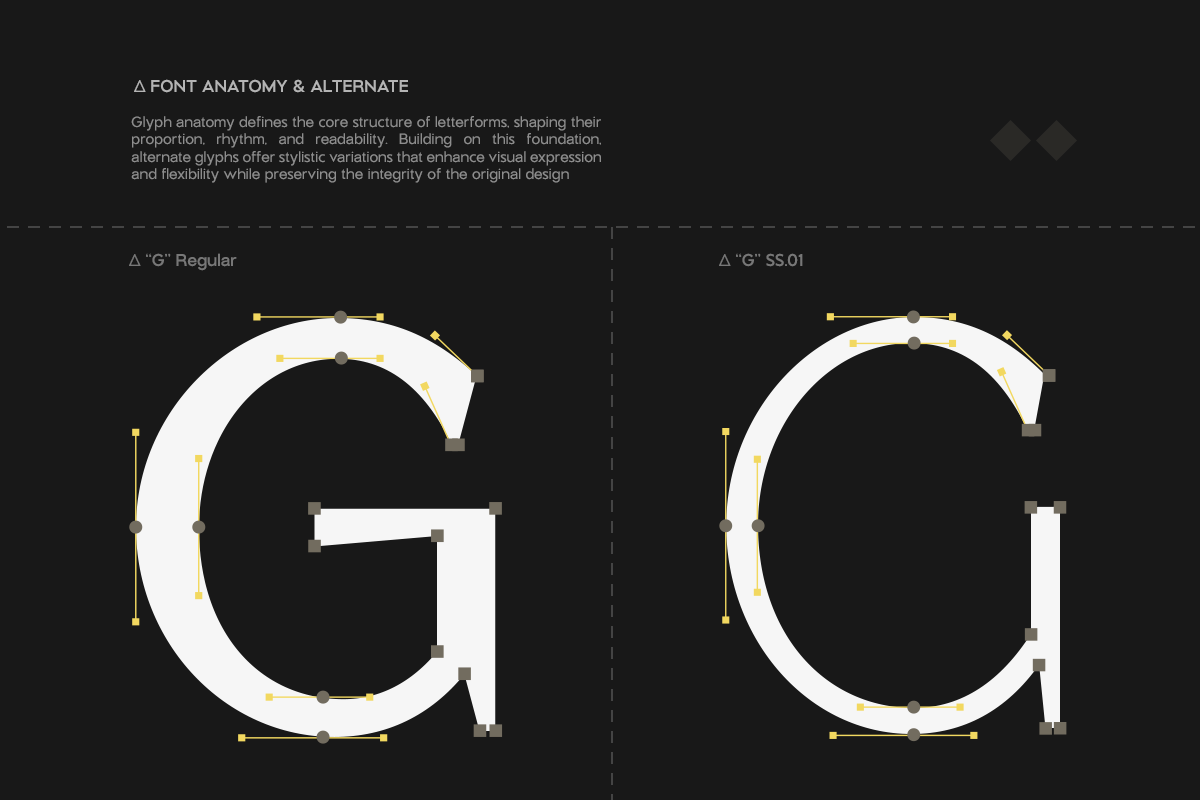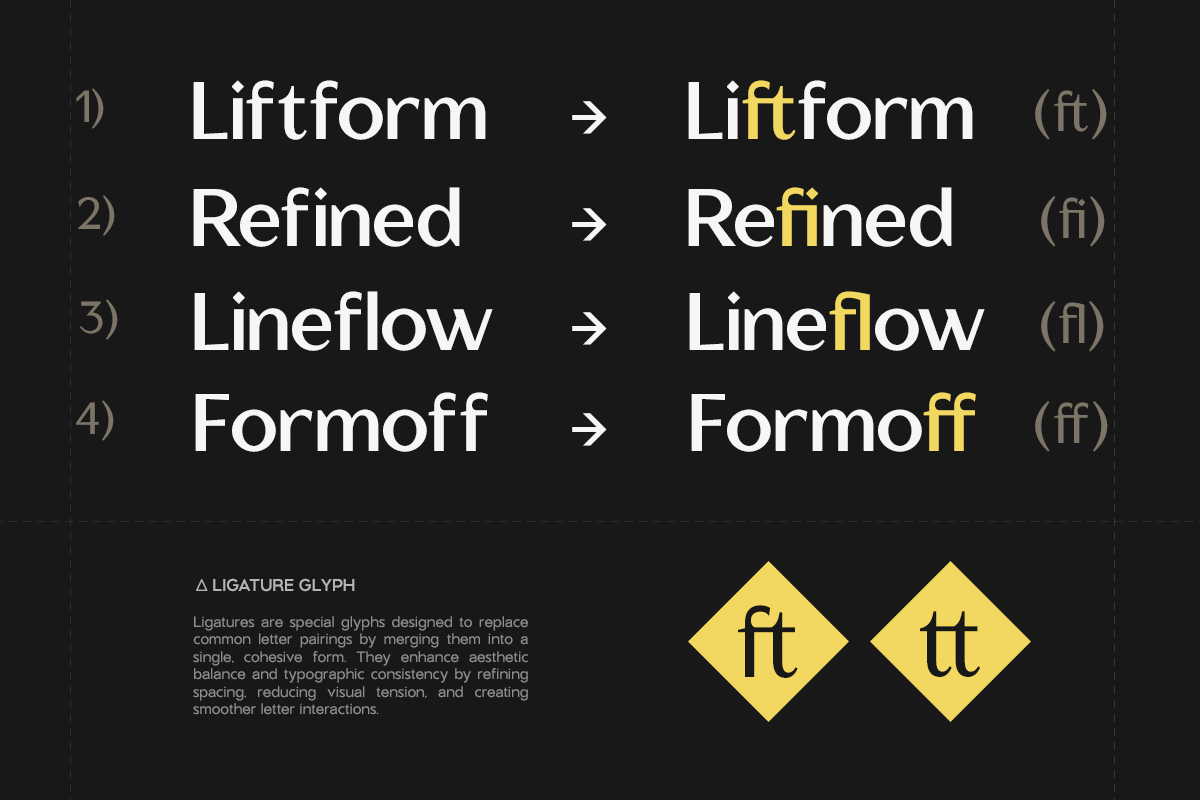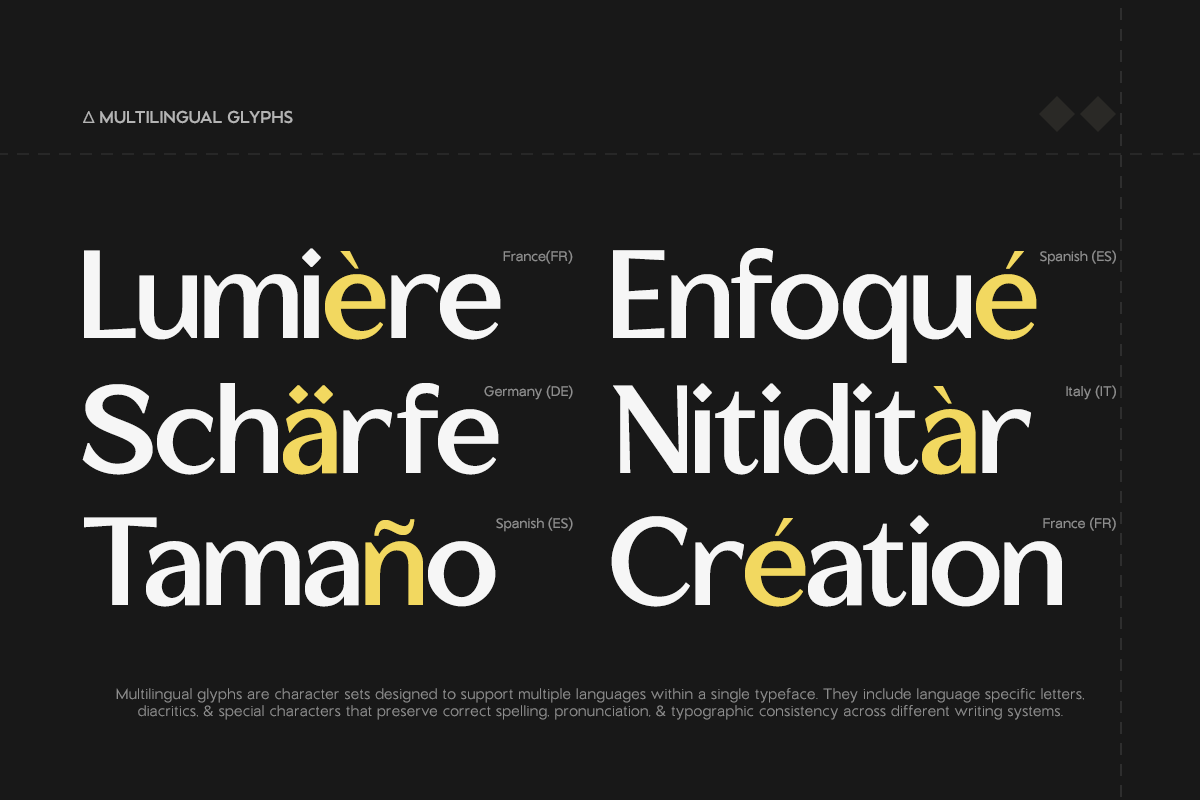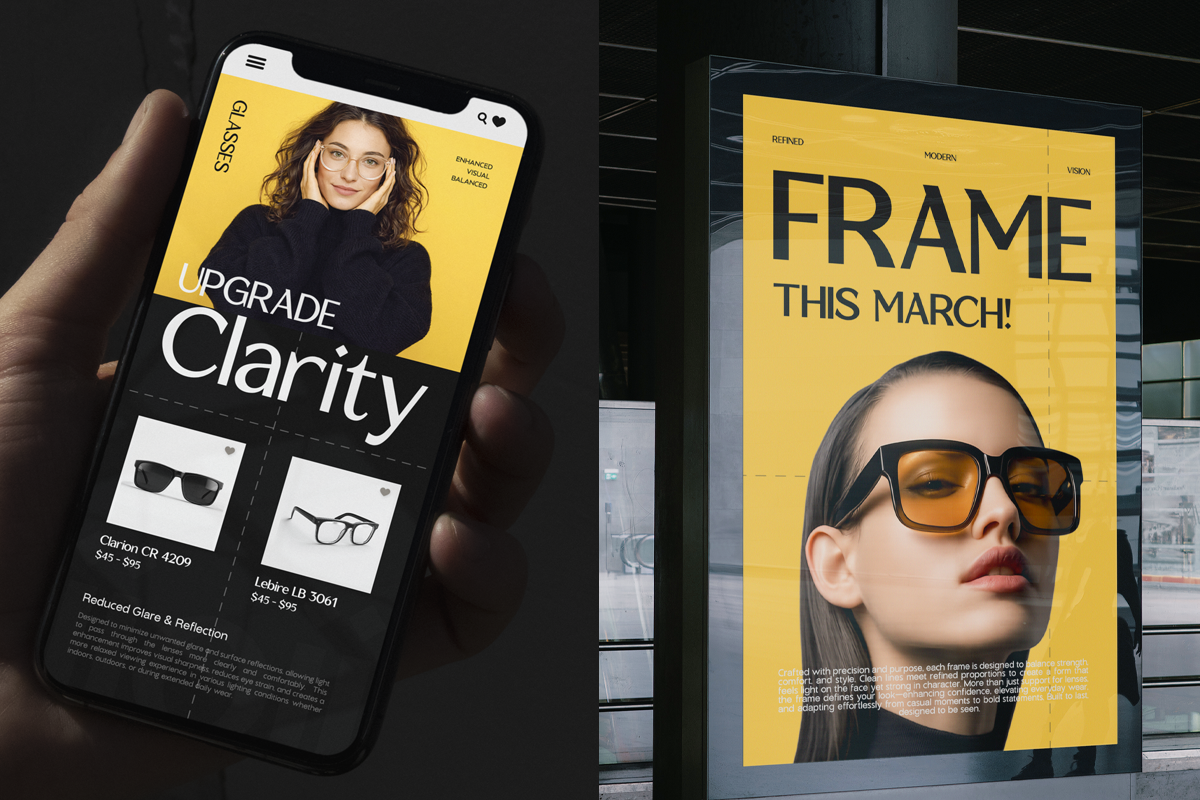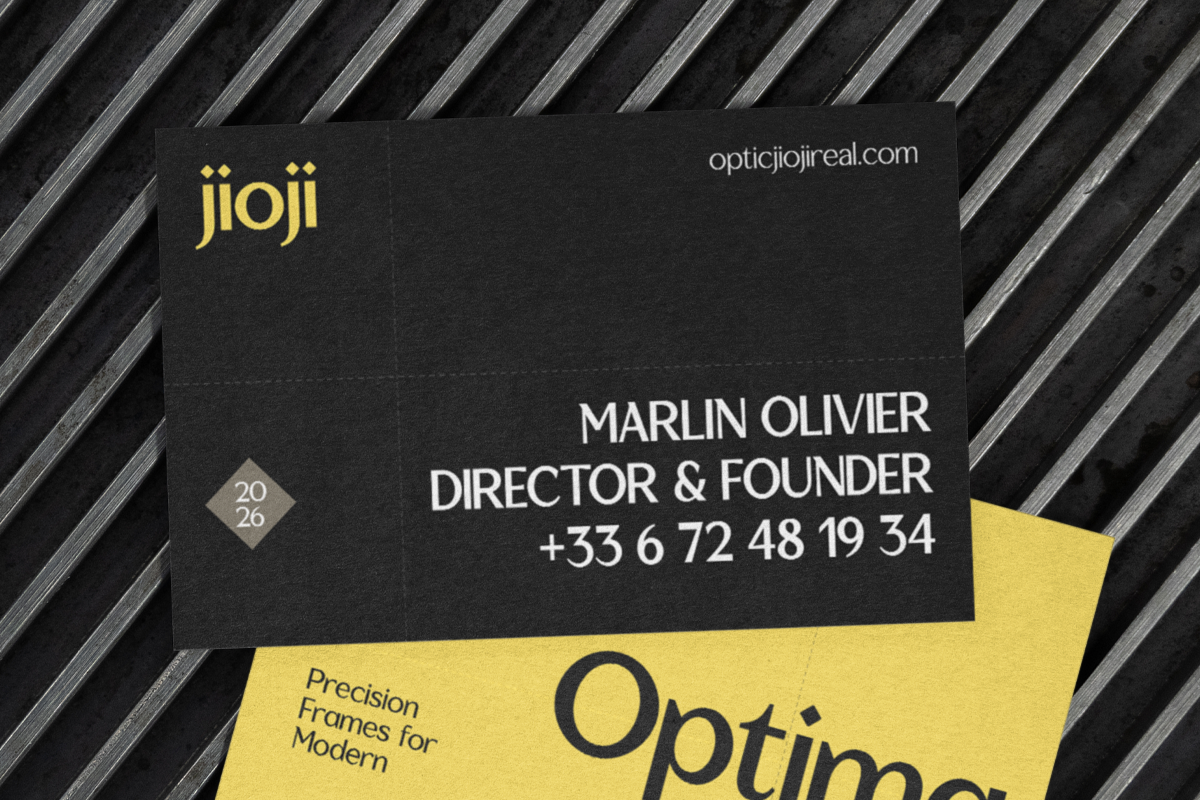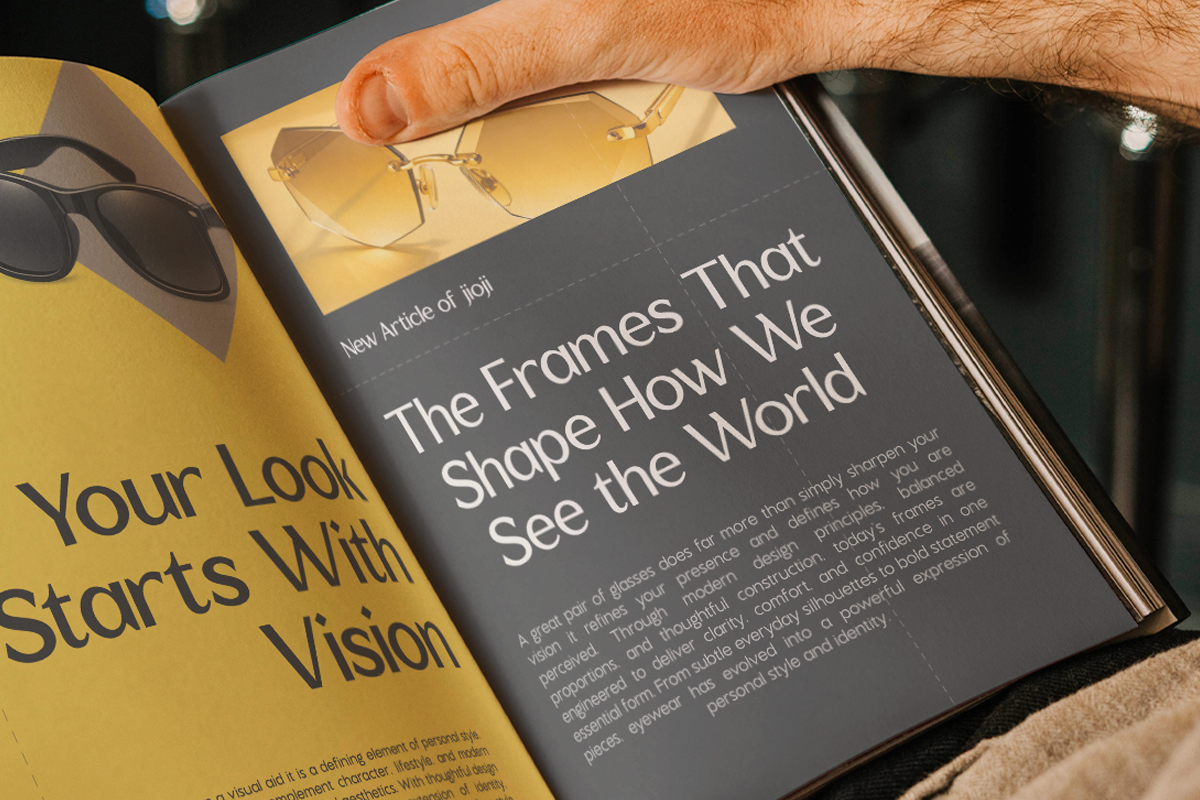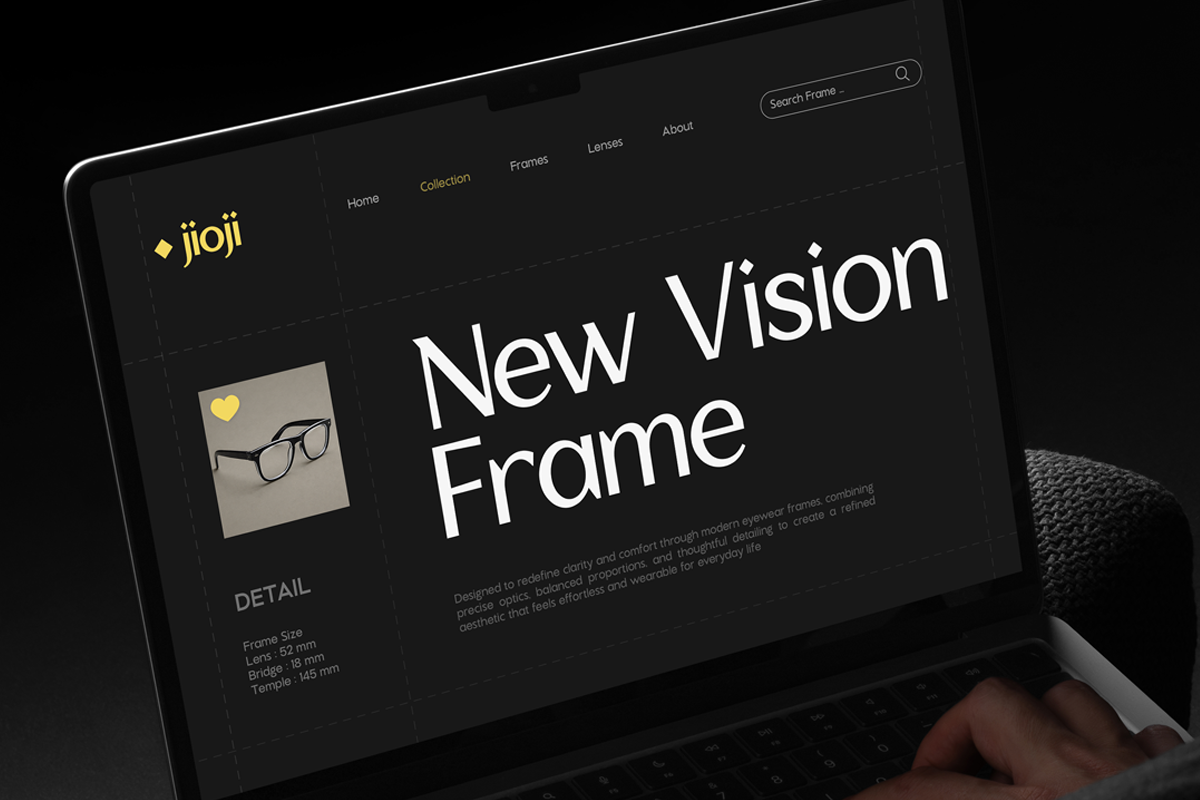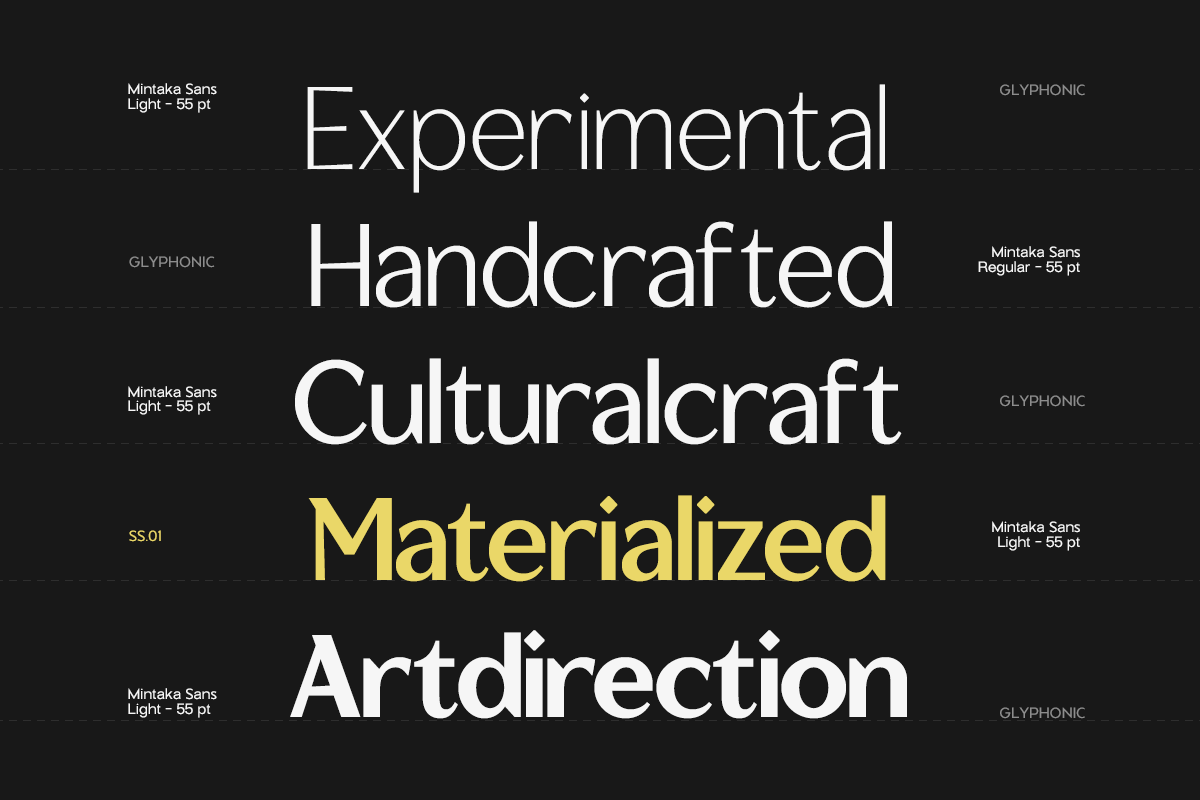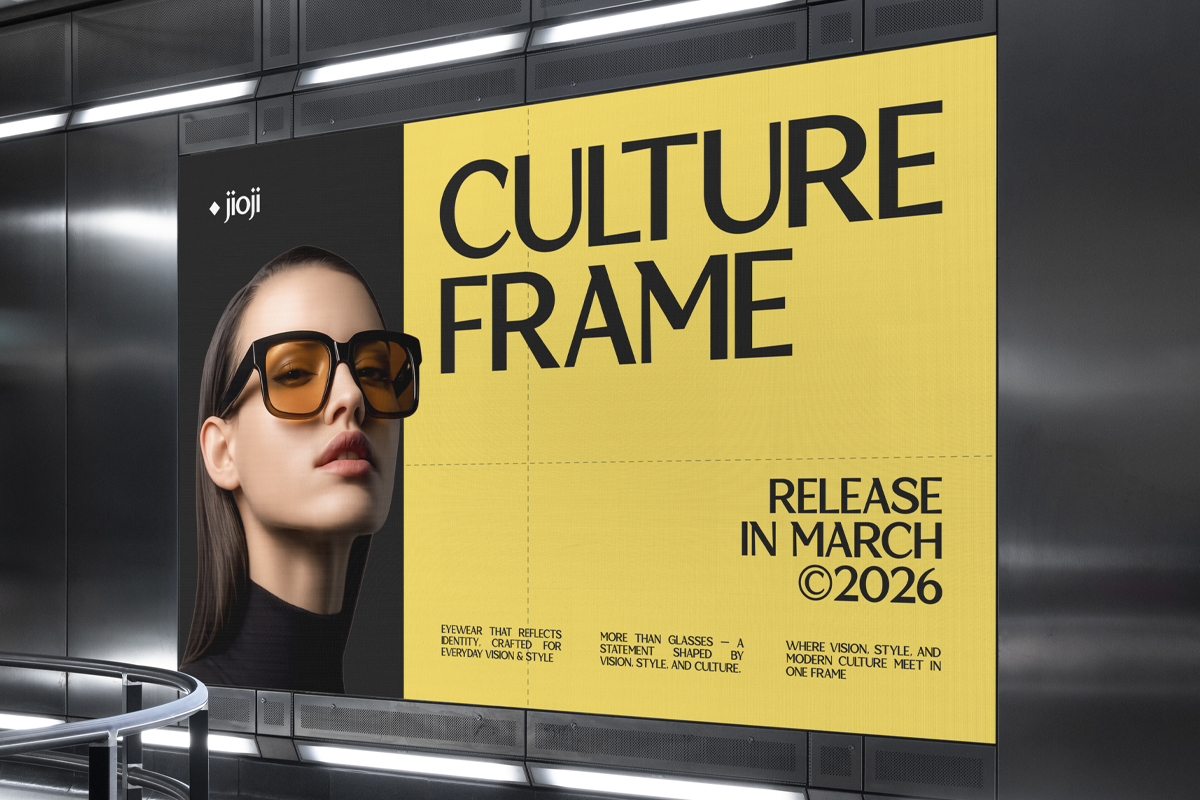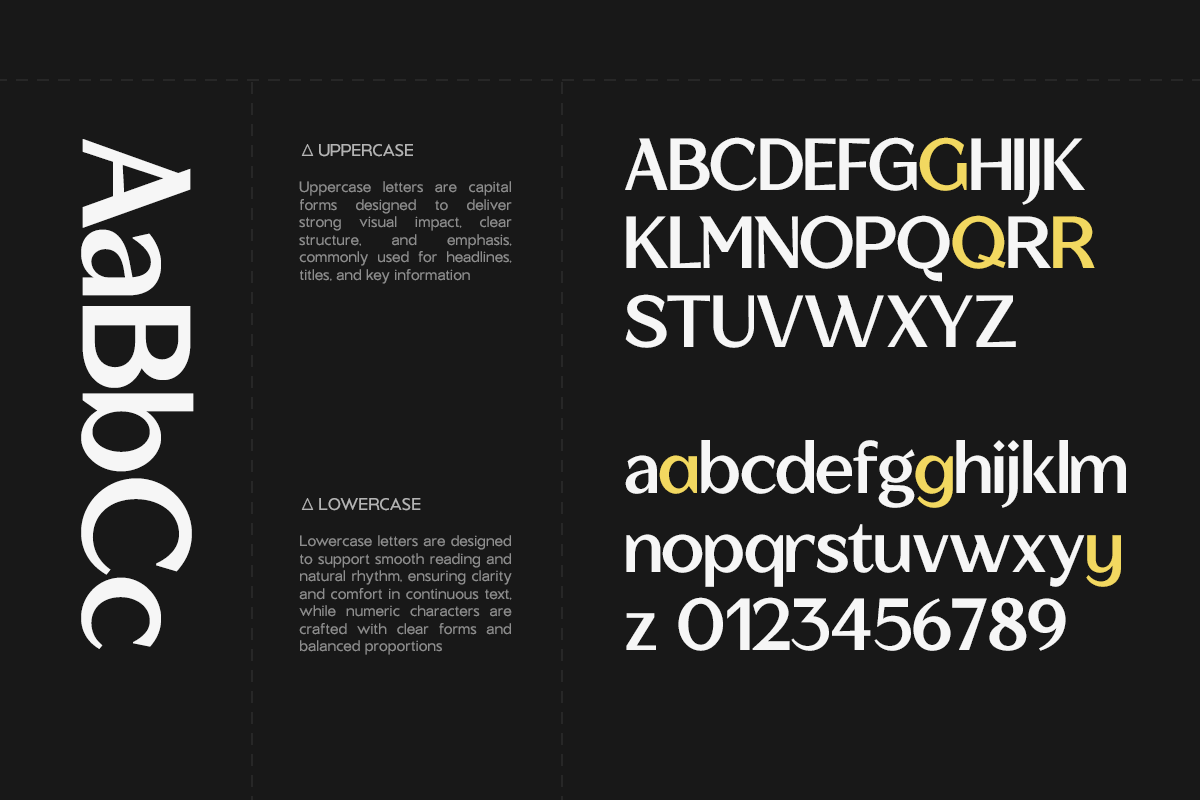
GC Mintaka - Elegant Display Sans
GC Mintaka – Elegant Display Sans is a modern display sans typeface crafted to deliver elegance through simplicity and clarity. Built with clean geometric forms, balanced proportions, and refined curves, Mintaka creates a sophisticated visual presence that feels both minimal and expressive.
With its smooth construction and sharp contemporary detailing—as seen in its elegant letterforms—GC Mintaka brings a sense of purity and modern refinement into every composition. The display sans structure maintains excellent readability while preserving a graceful and premium aesthetic.
As a variable font with 5 weight options, GC Mintaka offers flexibility for designers to create clear hierarchy across branding, editorial layouts, fashion visuals, posters, and modern digital interfaces. From light refined typography to bold statement headlines, the font maintains consistency and elegant character throughout every weight.
Variable Font (5 Weight Options)
Elegant Display Sans Construction
Clean & Refined Letterforms
Modern Geometric Structure
Multilingual Support (170+ Languages)
GC Mintaka — elegant display sans with pure clarity and modern sophistication.